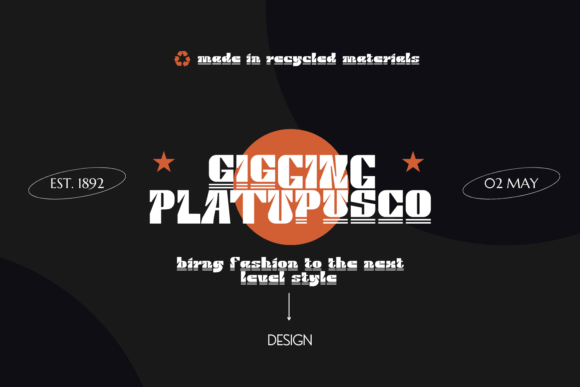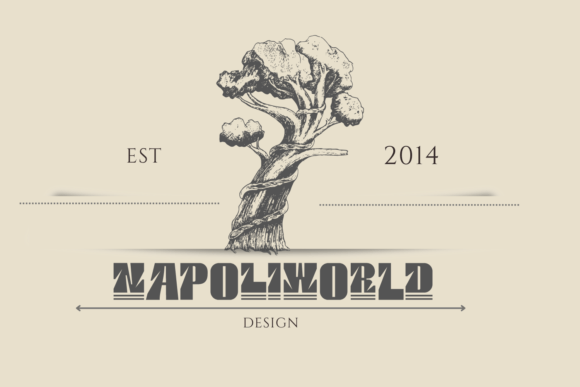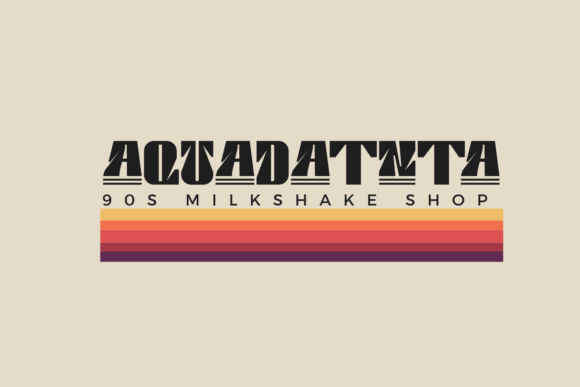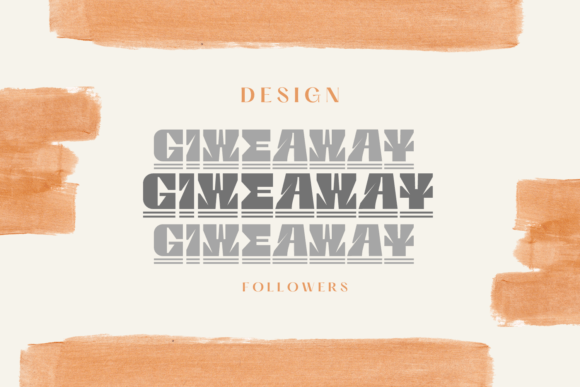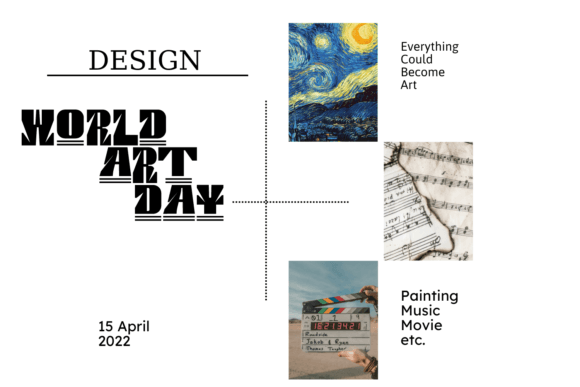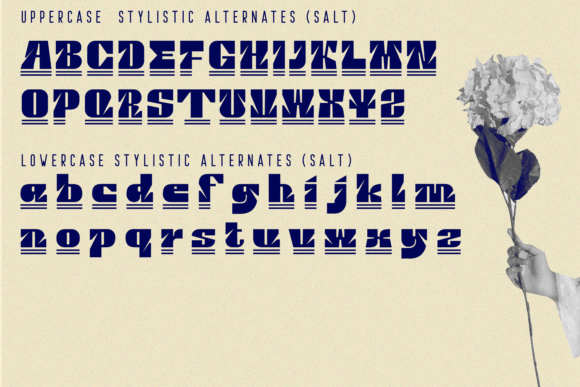
Introducing Beretta Font: The Perfect Choice for Minimalistic Logos
In the world of design, typography plays a crucial role in creating a lasting impression. A well-crafted font can elevate a brand’s identity and make it stand out from the competition. Beretta Font is a modern and classic typeface that has been designed specifically for creating minimalistic logos. With its unique style and modern look, Beretta Font is set to become a favorite among designers and crafters.
What is Beretta Font?
Beretta Font is a serif typeface that boasts a clean and elegant design. Its minimalistic approach makes it perfect for creating wordmarks, titles, and taglines. The font features a unique blend of classic and modern elements, making it suitable for a wide range of design applications. Whether you’re looking to create a logo for a new brand or refresh an existing one, Beretta Font is an excellent choice.
Key Features of Beretta Font
- Modern and Classic Design: Beretta Font combines the best of both worlds, featuring a classic serif design with a modern twist.
- Unique Style: The font has its own distinct style, setting it apart from other typefaces.
- Alternates: Beretta Font comes with alternate characters, allowing designers to emphasize separate letters in their text.
- Suitable for Various Design Applications: The font is perfect for creating wordmarks, titles, taglines, and more.
Benefits of Using Beretta Font
Beretta Font offers several benefits to designers and crafters. Its minimalistic design makes it easy to pair with other fonts, while its unique style ensures that your design stands out. The font’s classic and modern elements also make it versatile, suitable for a wide range of design applications.
Tips for Getting the Most Out of Beretta Font
- Experiment with Alternates: Use the alternate characters to add emphasis to specific letters in your text.
- Pair with Other Fonts: Beretta Font pairs well with other sans-serif fonts, creating a harmonious and balanced design.
- Play with Sizes and Colors: Experiment with different sizes and colors to create visual interest and hierarchy in your design.
Beretta Font is an excellent choice for designers and crafters looking to create minimalistic logos. Its unique style, modern look, and classic elements make it a versatile typeface suitable for a wide range of design applications. With its alternates, Beretta Font offers endless possibilities for creative expression. Download Beretta Font today and take your designs to the next level.